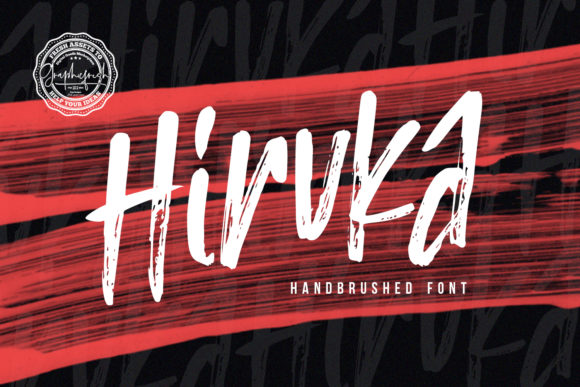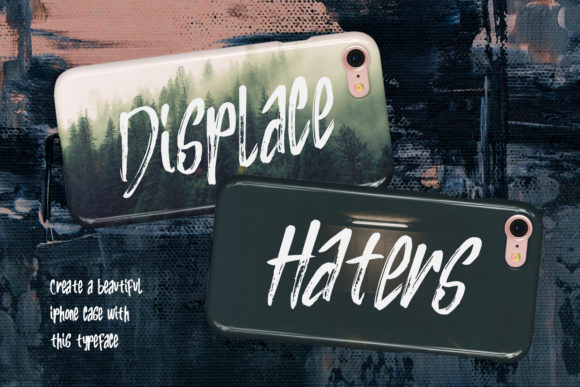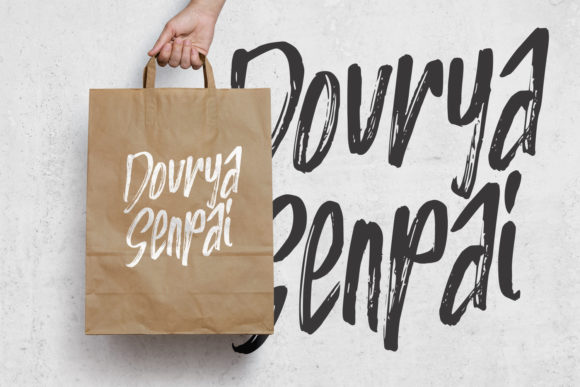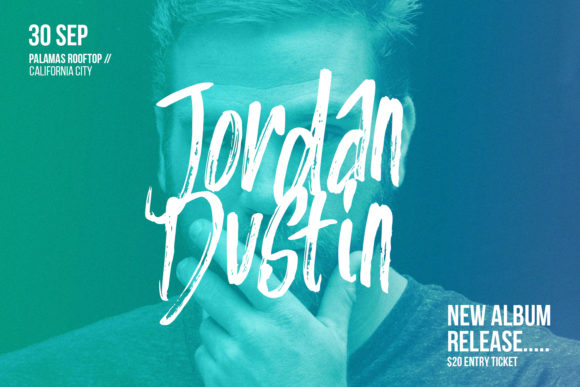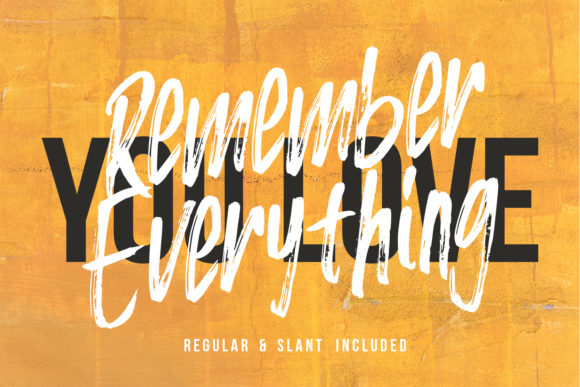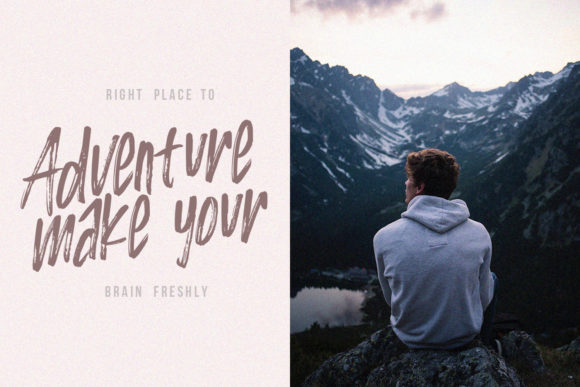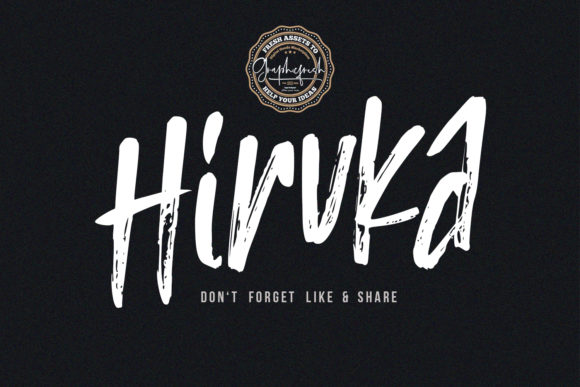
Hiruka Font
About Hiruka Font
Hiruka is a stunning and bold handwritten brush font with a simple twist. Get inspired by its unique feel, and turn any design idea into a true stand out!